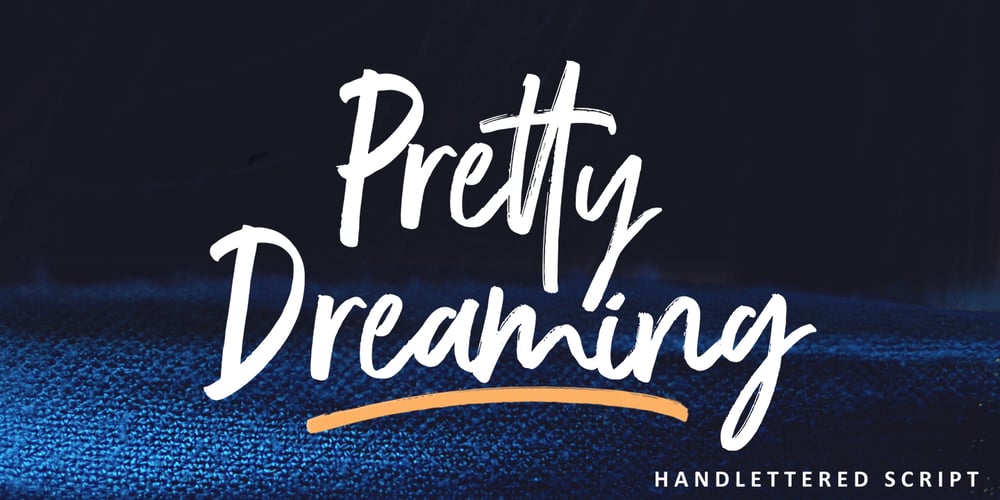
Pretty Dreaming Font Family was designed by Muhammad Fajar and published by Lucky Type. Pretty Dreaming contains 2 styles and family package options. Pretty Dreaming is a new Handwriting font with irregular baselines. a contemporary approach to design, handcrafted in nature, perfect for use in title designs such as clothing, invitations, book titles, stationery designs, quotes, branding, logos, greeting cards, t-shirts, packaging designs, posters and more.Pretty Dreaming also has more than 20 unique swashes.